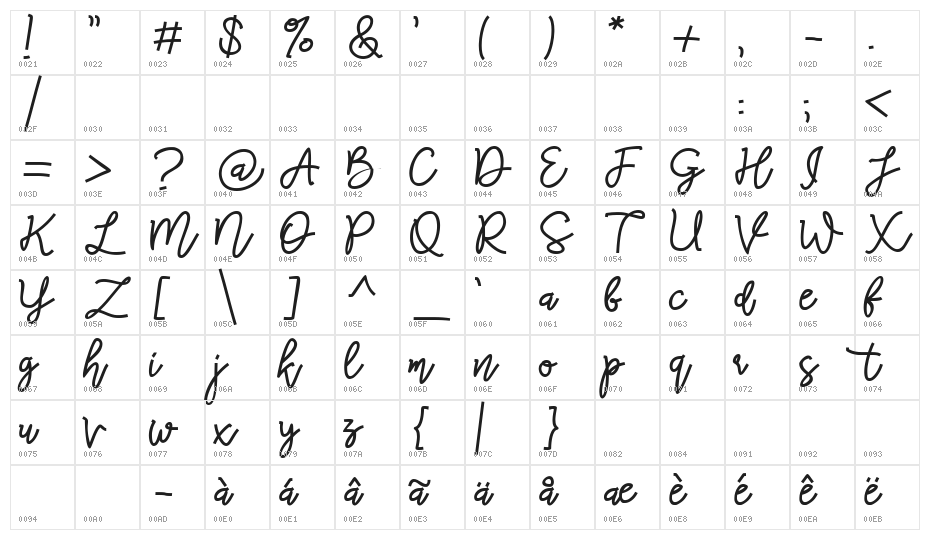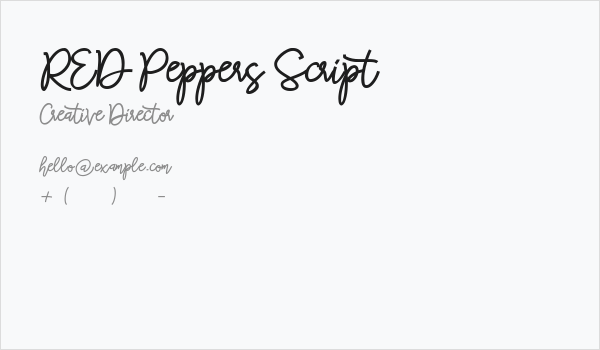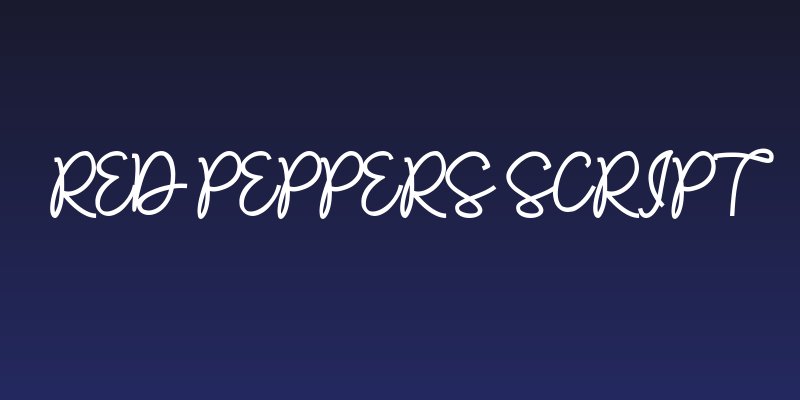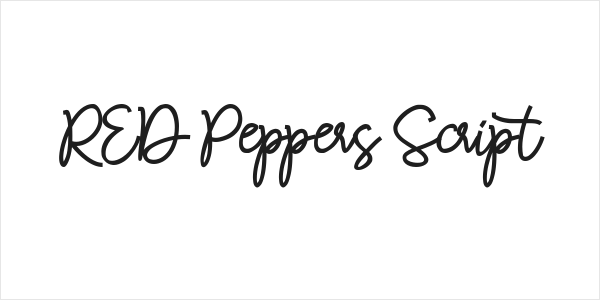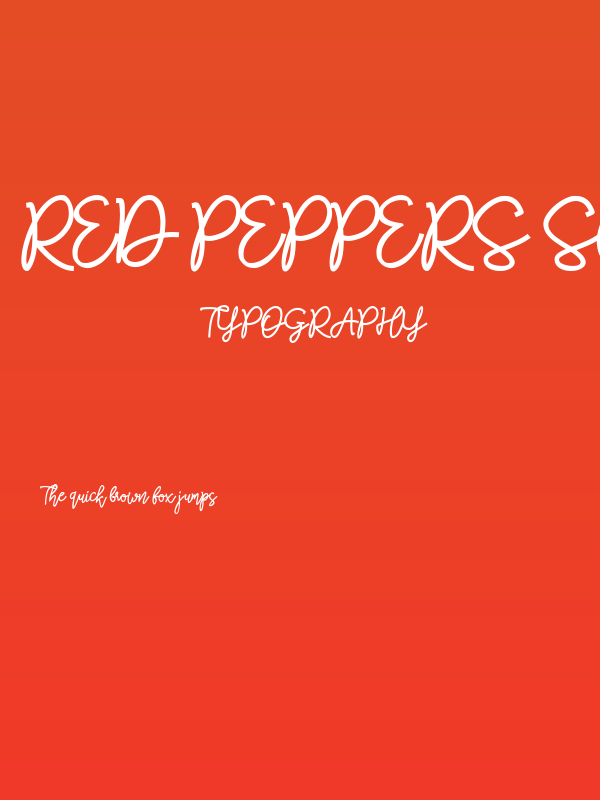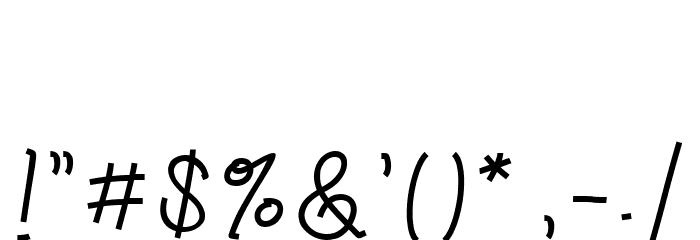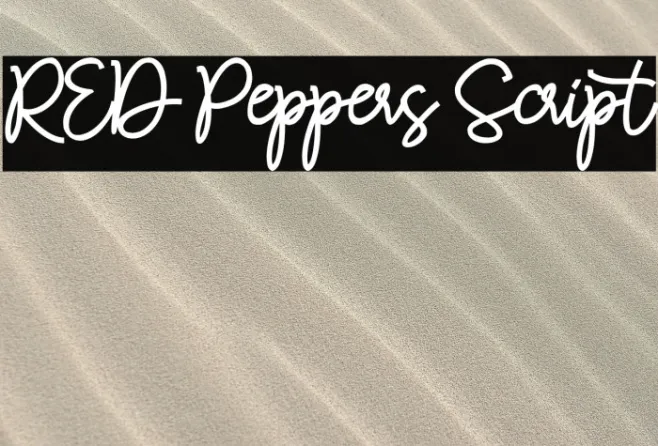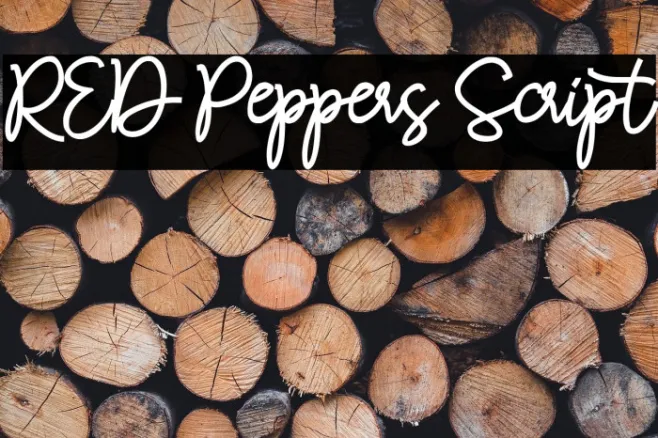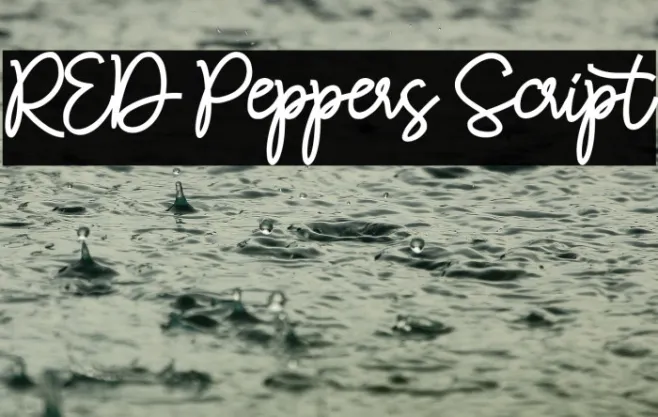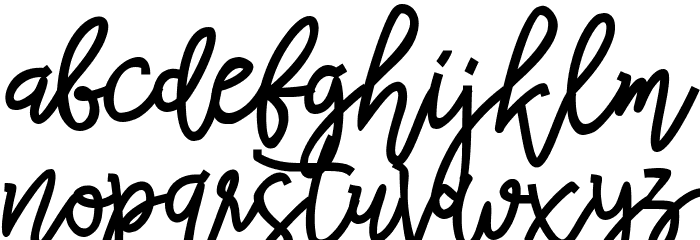
RED Peppers Script Font
This font exudes a lively and dynamic personality with its flowing, cursive script style. The characters are interconnected, creating a seamless and elegant appearance. The uppercase letters maintain a consistent height, while the lowercase letters exhibit a playful bounce, adding to the font's charm. The strokes are smooth and fluid, with a moderate thickness that ensures readability without sacrificing style. The special characters complement the overall design, maintaining the same energetic flow. This font is perfect for projects that require a personal touch or a sense of movement and creativity.